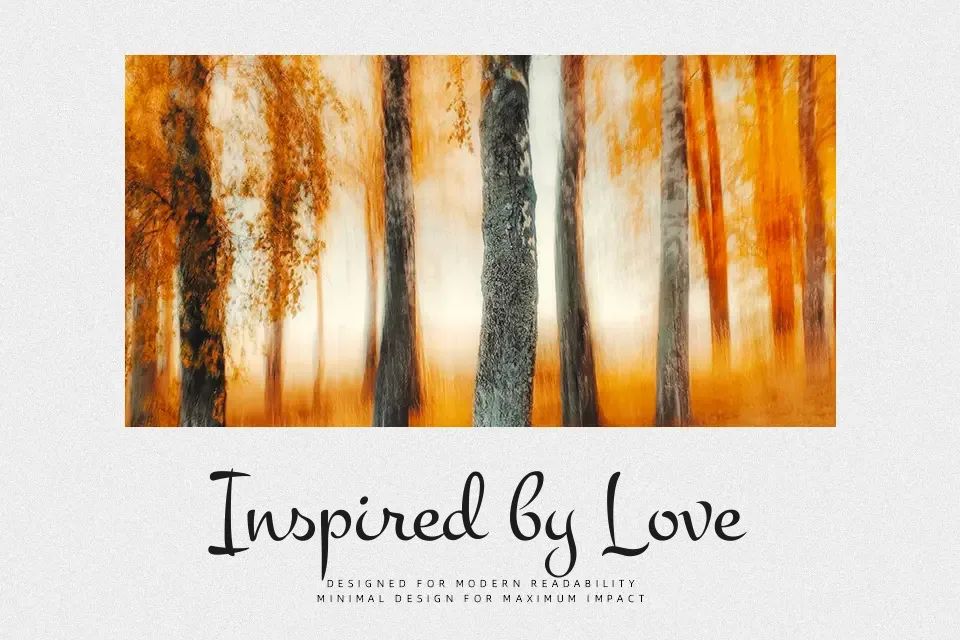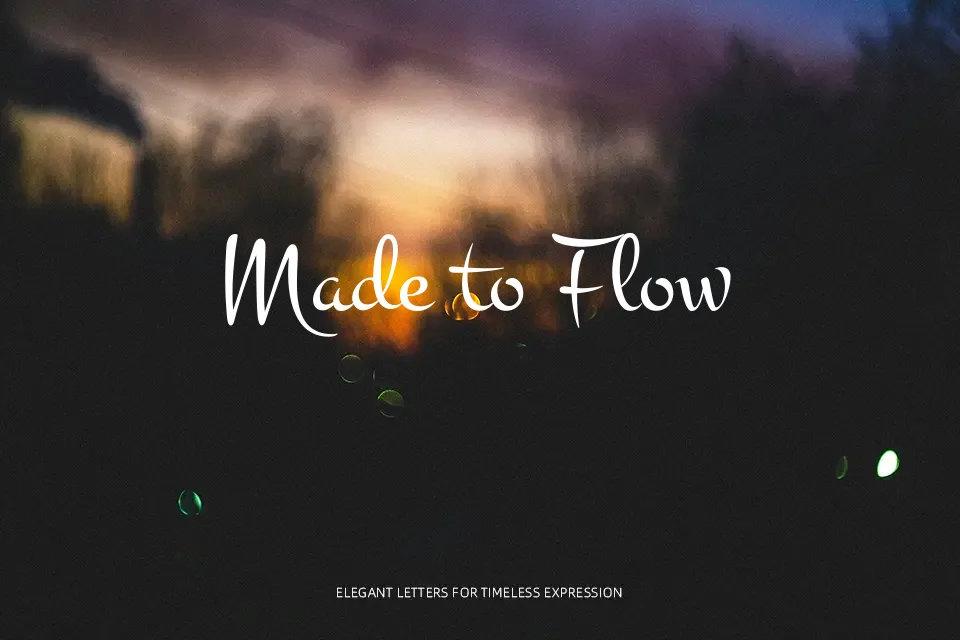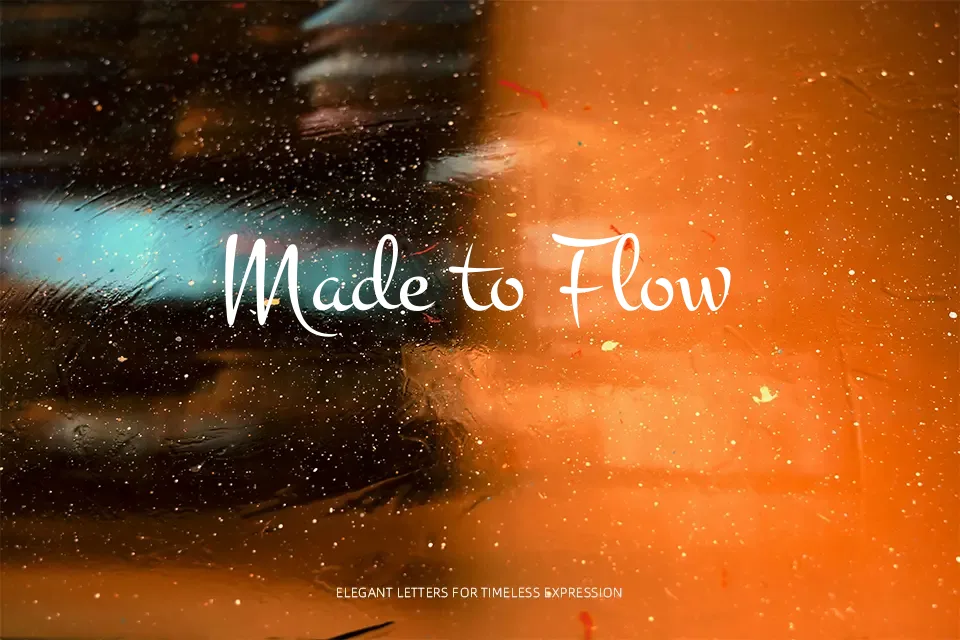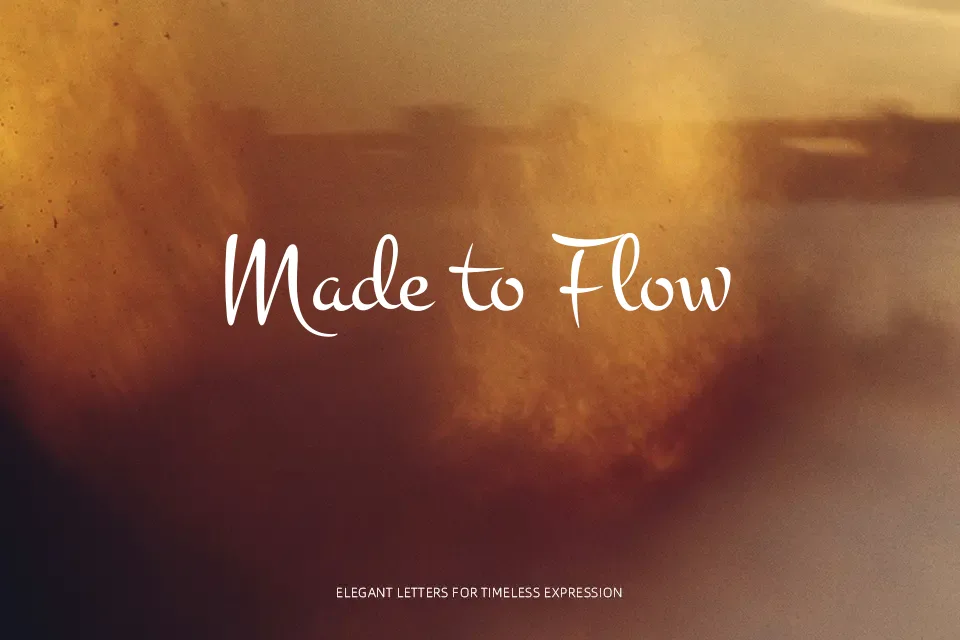
Montez Font
Designed by Astigmatic
Montez draws its DNA directly from mid-century beauty advertising — the kind where script type on a perfume box felt glamorous yet effortless. The strokes are fluid and moderately weighted, with a gentle rhythm that reads as genuinely hand-lettered rather than mechanical. Uppercase characters carry subtle ornamental lifts without tipping into over-decoration, and the connected lowercase maintains a consistent visual pace throughout.
It performs best on product labels, beauty brand identities, event invitations, and vintage-inspired poster headlines — anywhere retro warmth earns its place. Because legibility drops quickly at small sizes and the font offers only a single regular weight, it’s not suited for body copy, extended UI text, or projects that demand multilingual type support. A display-first script with a nostalgic, mid-century personality.
beauty brand packaging labels, vintage-style poster headlines, wedding and event invitations, boutique logo treatments
body text or long-form copy, small-size UI or navigation text, multilingual design projects, layouts requiring multiple weight variations
Perfect for branding, invitation, and logo, with a elegant and handwritten style.